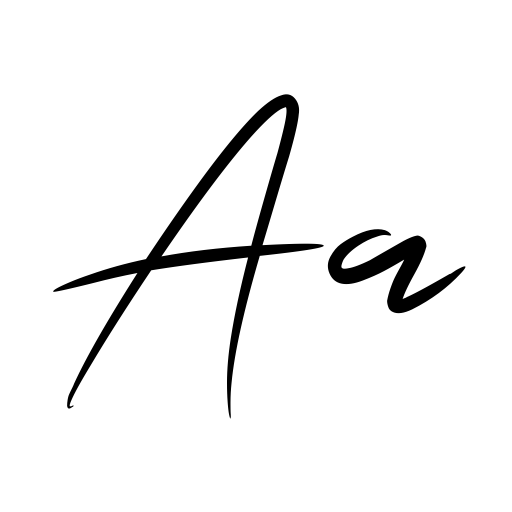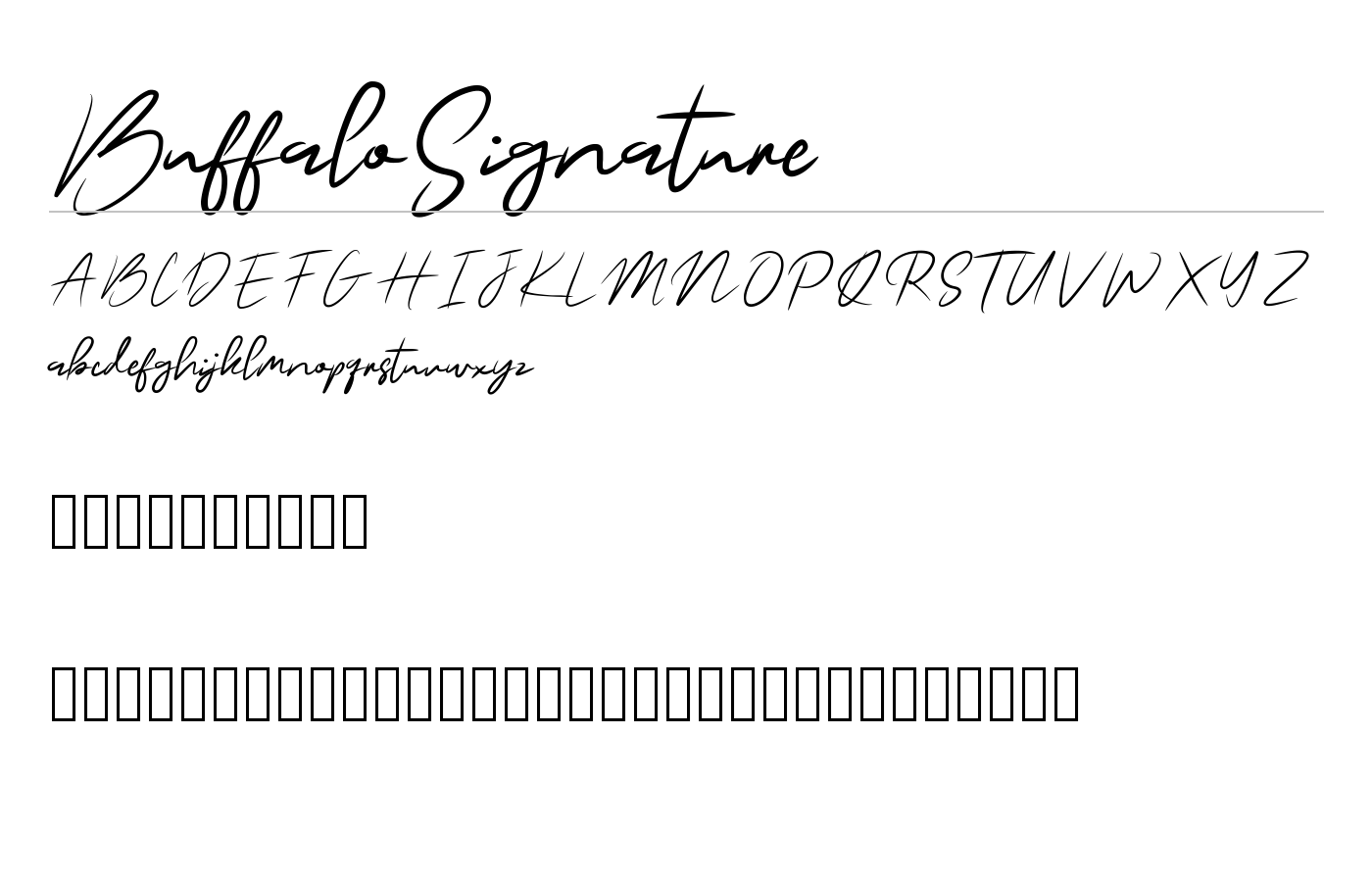
BuffaloSignature is a stylish, handwritten script font that captures a modern and elegant handwritten feel with its flowing, slightly textured strokes. It features a dynamic mix of thick and thin lines, smooth curves, and a natural, airy rhythm that makes it perfect for personal branding, fashion logos, invitations, and any design needing a sophisticated yet approachable touch. This font works beautifully in headlines and logos where a chic, signature-like appearance is desired.
BuffaloSignature Font